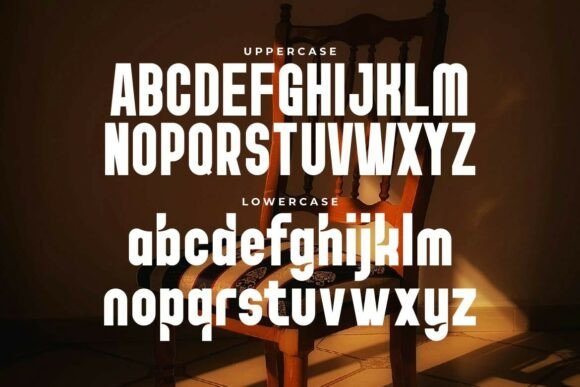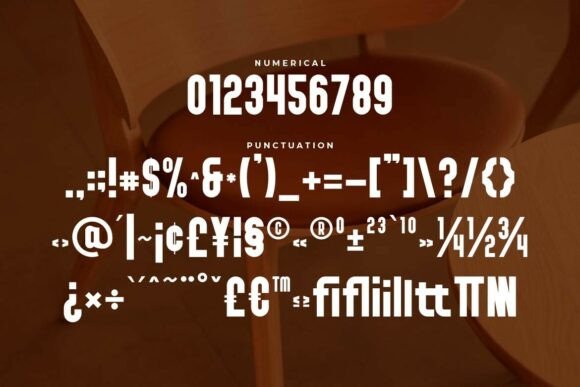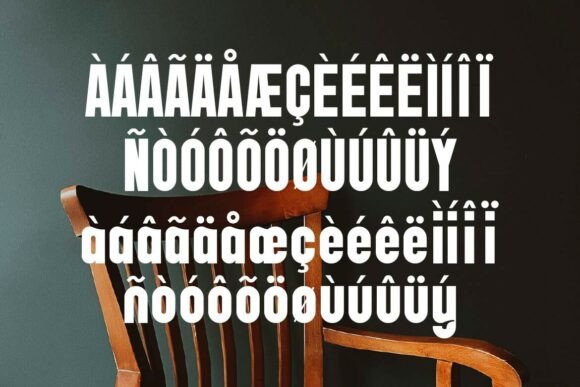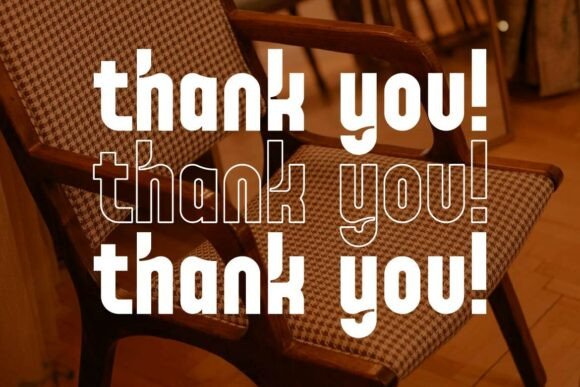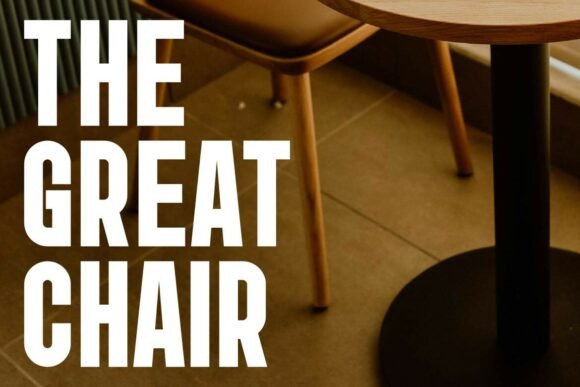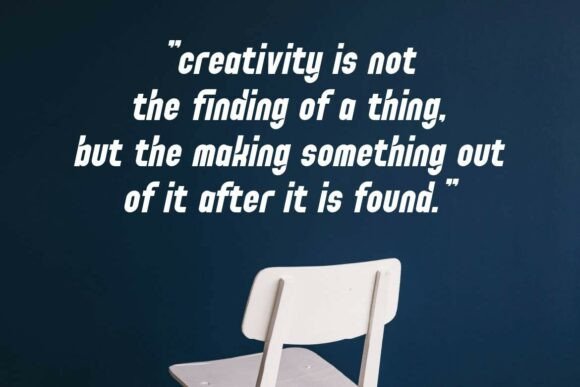
Meet Your New Design BFF: Conky Font
Have you ever stared at a blank page, searching for the perfect font to bring your creative vision to life? It’s a familiar feeling for many designers – the thrill of the hunt, the agony of the blank slate. But what if we told you that your search is over? Introducing Conky Font, a playful and modern sans serif typeface that’s ready to breathe new life into your designs.
Conky Font is more than just a pretty face; it’s a versatile tool that delivers a clean, expressive look that’s perfect for anything from logos and branding to digital products and publications. Its smooth curves, balanced proportions, and subtle playful details make it a valuable addition to any designer’s toolkit, ensuring that your work stands out without sacrificing readability.
Key Features of Conky Font
- Unique Characteristics: Conky Font features a unique, futuristic design that is easily readable in a variety of environments, making it ideal for use in system monitoring and notification applications.
- Font Style: Conky Font has a clean, sans-serif design with a futuristic twist, making it easily distinguishable from other fonts.
Designer Review: Conky Font
When I first laid eyes on the Conky Font, I was immediately drawn to its unique and quirky aesthetic. ✨ The font’s playful use of curves and lines adds a touch of whimsy to any design, making it perfect for projects that need a bit of personality.
One of the things I appreciate most about Conky is its versatility. ✨ It can be used for a wide range of applications, from digital art to branding and packaging. The font is also highly legible, even at small font sizes, which is a major plus.
However, I do have a few concerns about the Conky Font. ⚠️ First and foremost, it may not be suitable for all types of projects. The font’s playful nature may not be the best fit for more formal or professional designs. Additionally, some of the characters may be a bit too ornate or cursive, which could make them difficult to read in certain contexts.
- May not be suitable for formal or professional designs
- Some characters may be too ornate or cursive
Overall, I would give the Conky Font 4 out of 5 stars. It’s a fun and versatile font that’s perfect for designers who want to add a bit of personality to their projects. However, it may not be the best fit for every design need.